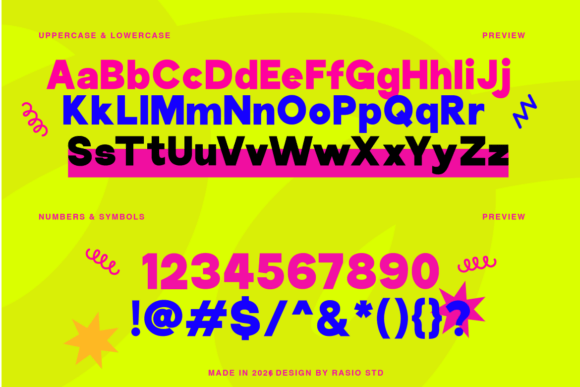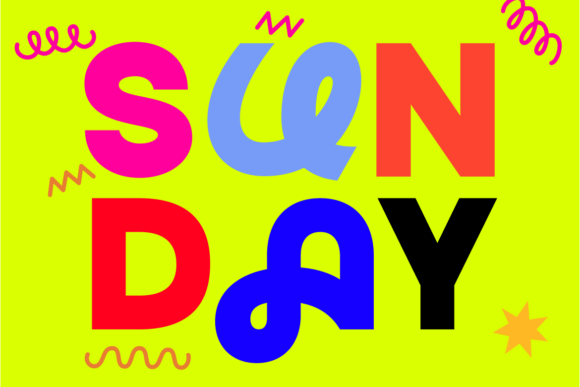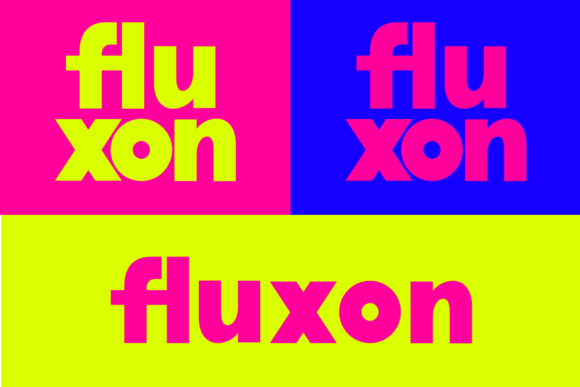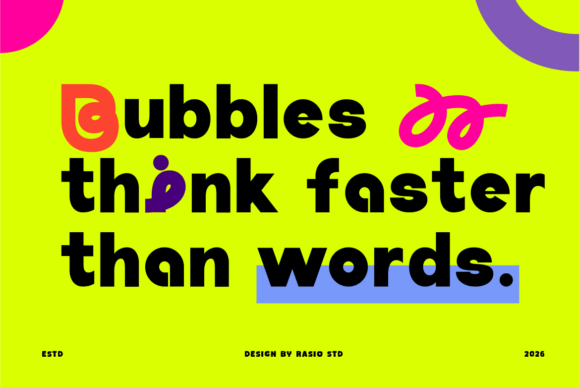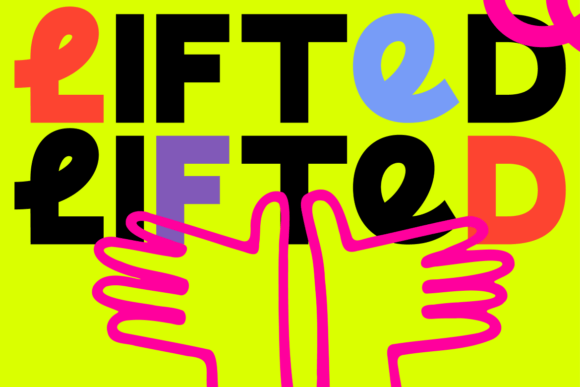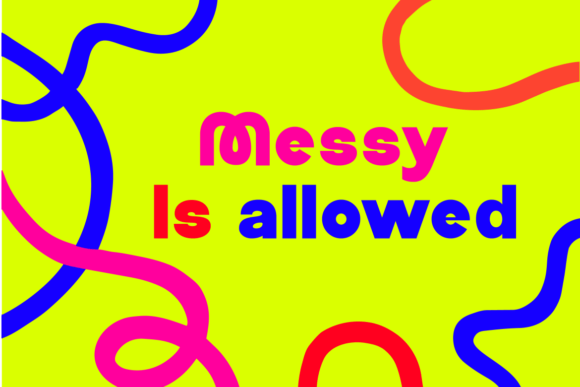
Introduction to Miyoku Font
Miyoku is a bold and expressive experimental display font that brings a splash of personality to your designs.
Its quirky curves, exaggerated forms, and vibrant rhythm make it ideal for fun branding, eye-catching posters, childrenโs products, creative packaging, and standout social media content This typeface includes uppercase, lowercase, numbers, and a full set of symbols and punctuation.
Key Features of Miyoku Font